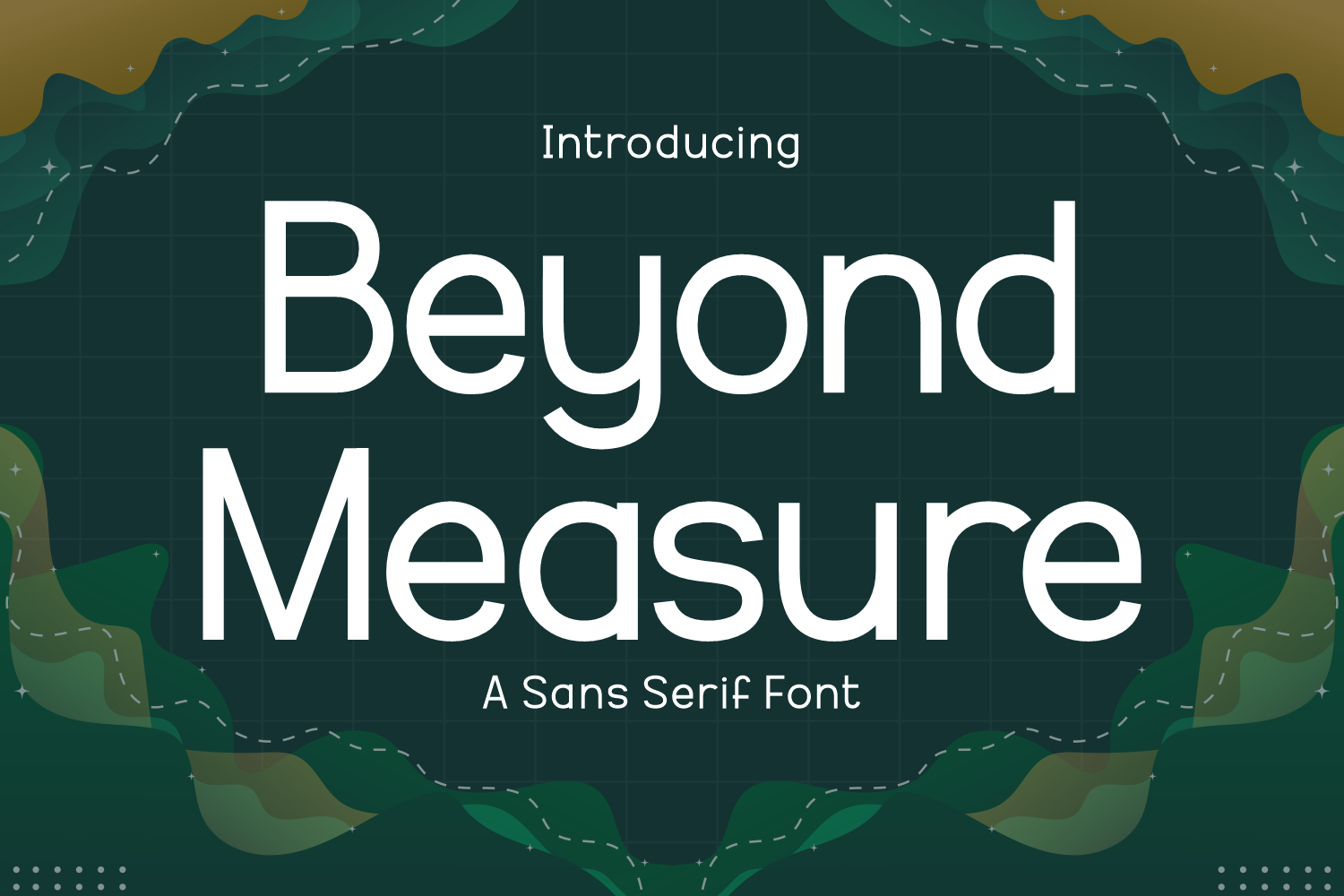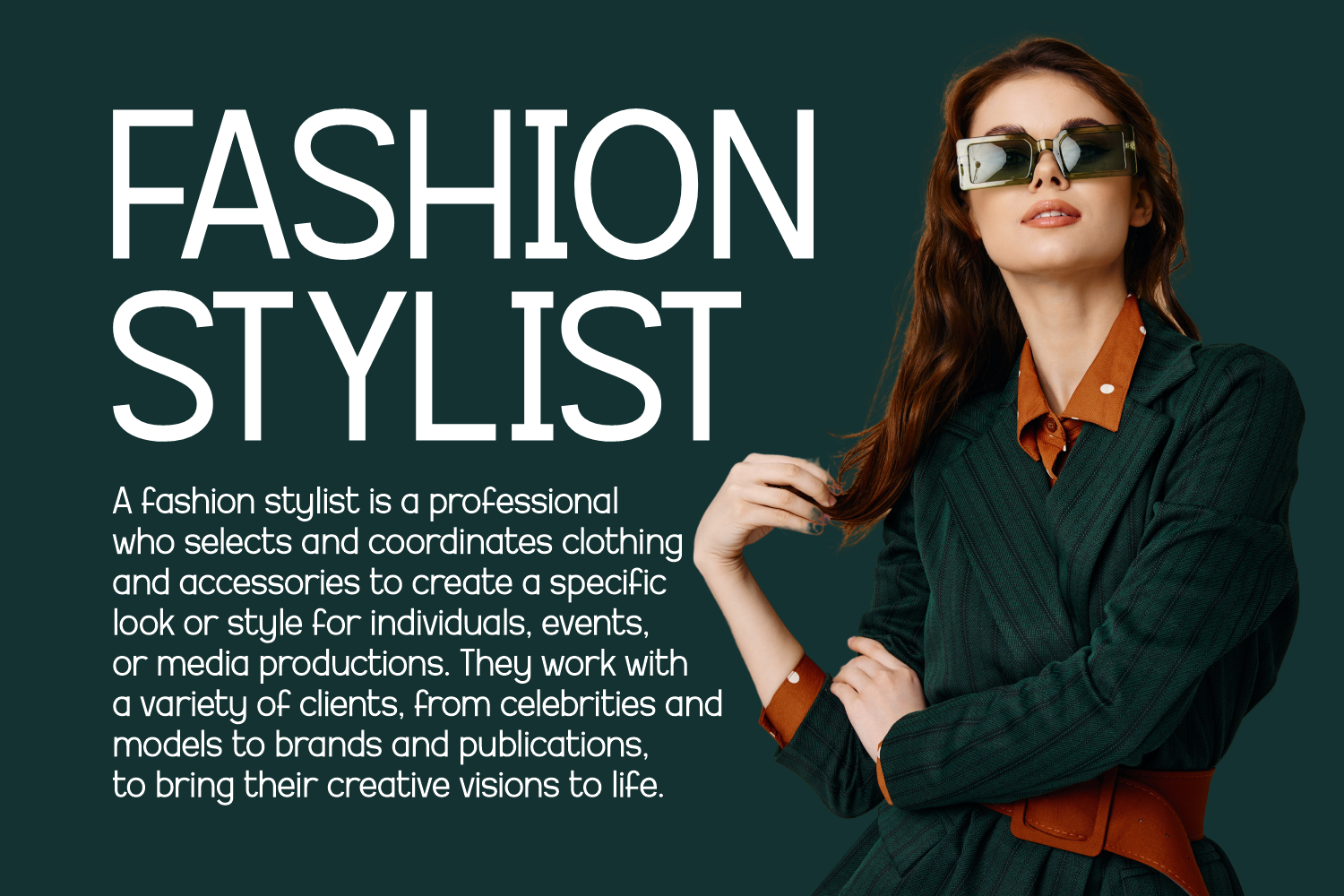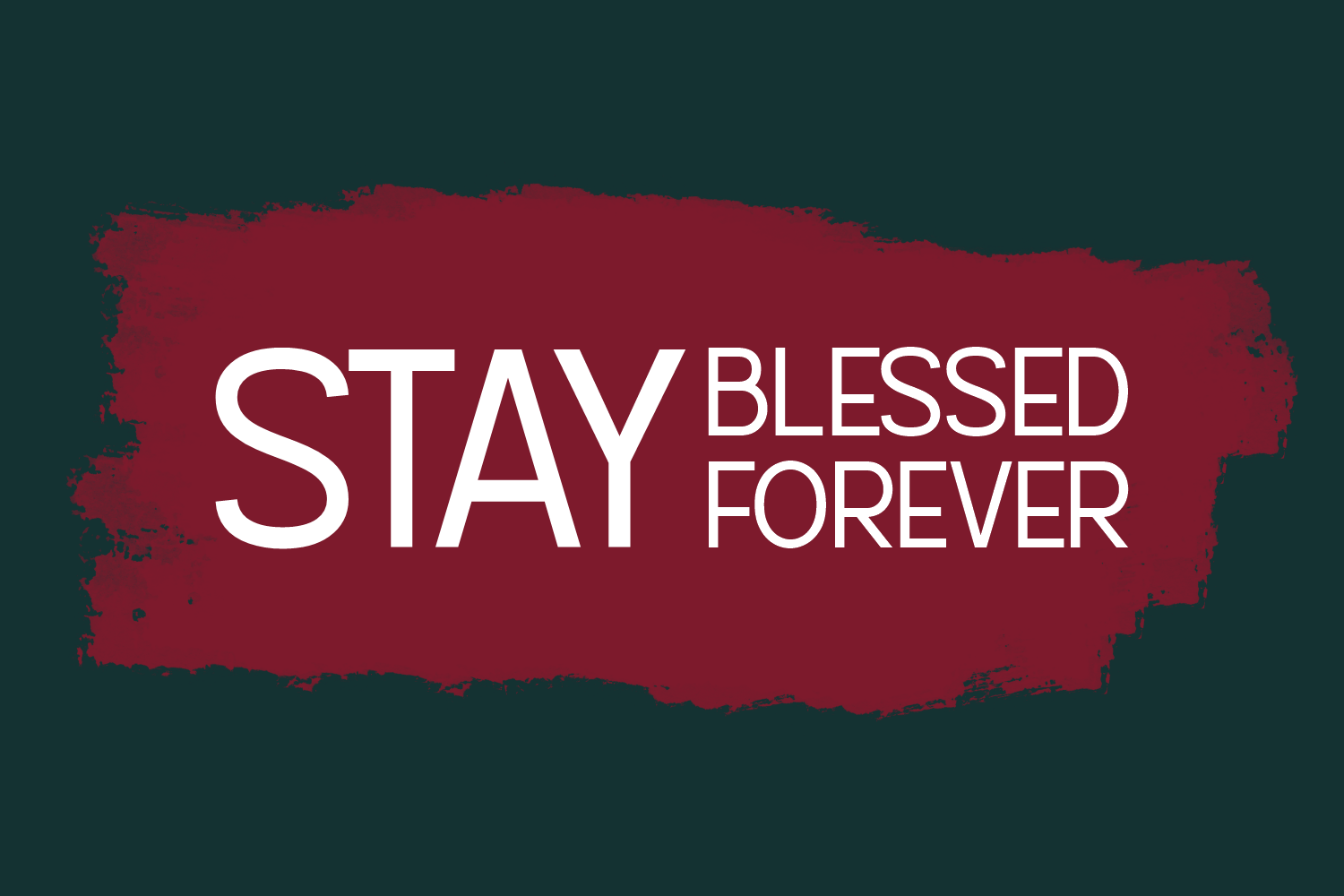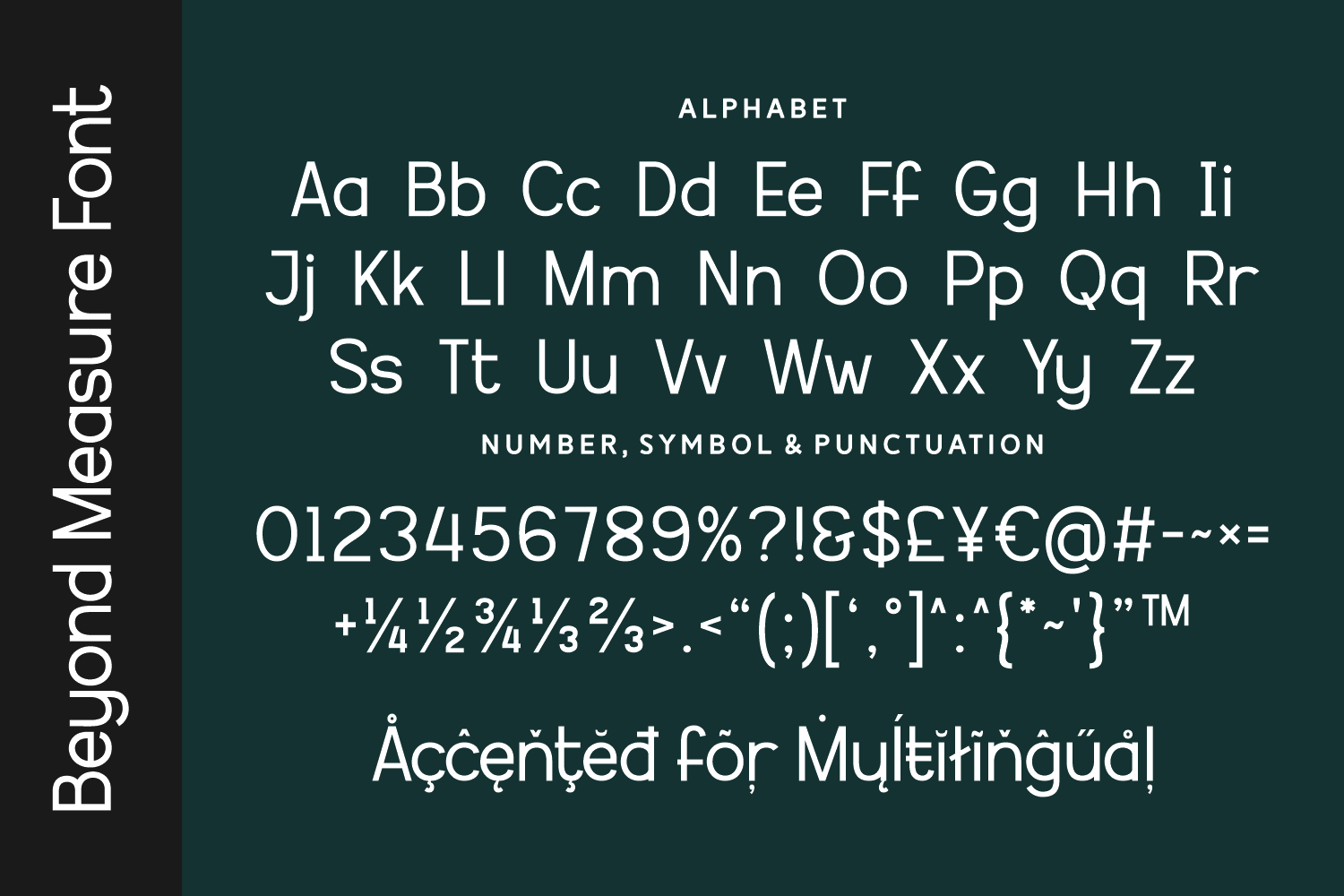
Beyond Measure
Beyond Measure is a clean and contemporary sans serif typeface designed for clarity and versatility. With its balanced proportions and soft geometric shapes, it adapts beautifully to branding, editorial layouts, digital interfaces, and product packaging, delivering a modern and approachable aesthetic.